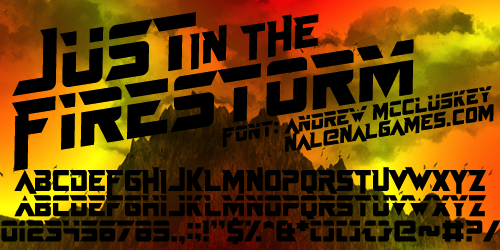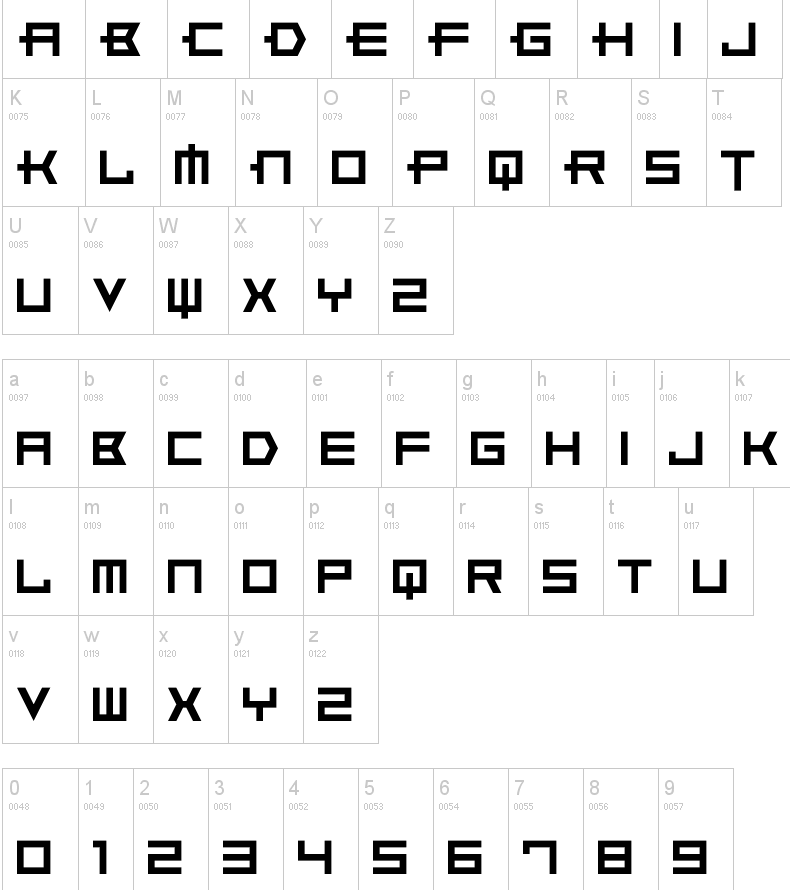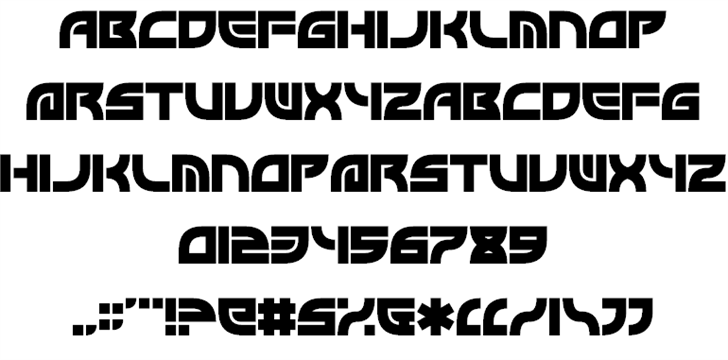
Andrew McCluskey
Independent game developer Andrew McCluskey (NAL Games, Dundee, Scotland, b. 1991) published hundreds of free typefaces before 2015 under the NAL label. In 2015, Andrew McCluskey, after becoming Allison James, joined forces with Daniel Johnston and set up Chequered Ink in bath, UK. They live in Newport, Wales. Andrew's pre-merger fonts are listed here.
Andrew McCluyskey designed the free LED-inspired Kinglify (2011), Digital Display (2012), and Princelify (2011). Manly Man (2011), Metal Arhyrthmetic (2011) and Ace Futurism (2011) are semi-octagonal. Consider Me Vexed (2011) and Pixel Flag (2011) are pixel typefaces.
In 2012, he made She Curls in the Mist, Xero's Karma, Pastcorps (army stencil), Gnome Splinters, Fought Knight, Vermin Vibes (futuristic), Vermin Vibes 1989 (pixel face), Vermin Vibes 2, Vermin Vibes 3 (2014), Vermin Vibes Diet, Vermin Vibes Redux, Dubbing Star (futuristic), Sorrier Statements, Particulator (an octagonal paper fold typeface), Coder's Crux (a pixel typeface created for programmers, FontStruct), Triggering Fanfares (octagonal), Alt West, Notalot25 (pixel face), Notalot35 (pixel face), Lord Juusai (inspired by the logo for Lord Tensai from WWE), Zephyr Jubilee (an alien language simulation typeface), Bevel Fifteen, Xero's Theorem (sci-fi), Sawchain (2012, FontStruct), Dubbing Step and Here Be Dubstep (FontStruct), Italic Bricks, Gang Wolfik (angular, +Blade), Ruaturecu, Quous Inno, Electramaniacal, Xodohtro-Nu (a black octagonal typeface), Distortion of the Brain, Berate the elementary (techno face), Not sure if weird or just regular, Opulent Fiend, Rawhide Raw 2012 (techno, inspired by the WWE Raw logo of 2012), Particulator II (octagonal), The Missing Link (trekkie), Thunderstrukk, Understrukk, Ganf Wolfik Blade (a pointy Blade style font).
Typefaces made in 2013: Call of Ops Duty, Spinebiting, Laceration, Casual Hardcore, Zany Races, Vermin Vibes 2 Nightclub, Exoskeleton, Perspire, Piston Pressure (sans), Particulator III, Liberty City Ransom (grunge), Zdyk Leo, Variety Killer (grunge), Savantism, Vermin Vision, Zdyk Sagittarius (a circle-based experimental font), Milestone One (a gaspipe sans), Comfortably Fucked, Noasarck (+Sporadico, +Quattro), Future Time Splitters, Heart Breaking Bad, Jan Hand, Erhank, Exoskeleton, The Rave Is In Your Pants, Minecraft Evenings (inspired by the Minecraft logo), FoughtKnight Victory (a video game font), Piescese, Comic Spans, Cauterise, Dead Font Walking (rough-edged poster font), Cutthroat Clawmarks, Eride (grunge), Effervescent Superbeings, Front Page News, Kill The Noise (brush script), Distort You A Lesson (grungy), Vermin Vibes 2 Black, Vermin Vibes 2 White, Vermin Vibes 2 Soft, Dubstep Cadence, Relapse Into Madness, Kings of Kings Lynn (dadaist), Smorgasbord, Scream When You'Re Ready, I Phone You Phone, Respire, Perspire, Vermin Vibes Slant, Sharp, Cursivertex, Rick Lobster (stencil face), Cursivertex, Vermin Vibes Dystopia (cyberpunk), Wabbit Sans, Calligraphy Aquiver, Agra Axera (knife-edged sci-fi face), The Keepsake Days, See You At The Movies, Xero's Proof, Vermin Vibes Out Of Ink (textured), Melancholic Roadeo, Wickermanor (a stiletto typeface), Lord Juusai Rises, Vermin Vibes Ex, Vermin Vibes Roundhouse, Just in the Firestorm, Stuntcroft (modular), Ghetto Magnetic (grunge), QA Reports (fat finger typeface), Y-Andermo (stiletto style), Dragon Slapper.
Typefaces from 2014: Man Flu (FontStruct), Zany Races, Big Quicksand, Modern Caveman, Alpha Sapphire (a Pokemon typeface), Omega Ruby (a Pokemon typeface), Schweiz, Beta (FontStruct), Jawbreaker (FontStruct), Tomorrow Wind, Embezzler, Royal, Final Gambit (grungy athletic lettering), NAL Hand, Fingbanger, Dont Waste That Napkin (squarish font), Bold Testament, Cisgender, NonchalantLove, Grelsey Kammar (sic), Valiant (stencil), Anger Management, Italipixel, Ultramarine, Nero (sci-fi font), Bamboozler, Seriffic, High Jinks, Iregula (sic), LNR Phonetic Alphabet, Primary School, Playtime (3d face), Electromagnetic Lungs, Node to Nowhere, Alienated (trekkie font), Questrian, Scars, Da Se Nei (art deco), Dance Floor (dot matrix face), Edge Cutting, Lord Juusai reigns, Superpower Synonym (fat brush), Fought Knight Die (techno), The Thrill of the Kill, Lay of the Land, Deavantgar (art deco), Confidel, Fight Night, Comeback of the Damned, Vermin Vibes Corrupto, Chandstate, Scars, Bustin Jieber (pixel typeface), A Dash of Salt, Come Rain or Fall, Xsotik, Sanseriffic (avant-garde sans), Cassius Garrod, Effortless Tattoo, Coder's Crux 2, Radaro, Overdrive Sunset (brush face), Dead CRT, Fatality's Edge, Tolerant, Coder's Crux 2 (dot matrix), Consider Me Vexed (pixel face), Diamante, Pixel Flag, Aardvark CWM Type, Enter The Grid, Vermin Vibes 2 EDM XTC, Byron, See You at the Movies 2, And Then It Ends, God Hates Westboro, Writing Without Ink, Zdyk Aquarius, Curvert, Superdie, Rocky Road, Animal Silence (constructivist), Gnaw Hard, 19th Century Renegade, Trip Trap, Freudian Slit, Digital Dismay (LED face), Zdyk Pisces (circle-based typeface), Zdyk Scorpio, Guilty Treasure (techno), Wolfganger (inspired by Wolfgang Gartner), Xero's Retreat, Sitdown (octagonal), Stencylette, No More Justice (blackletter), Masterblast (sci-fi), Kesha (sci-fi), Primal Dream, Grandma's Television, Keyboard Warrior, Foughtknight, Blissful Thinking, Positive Reinforcement, The End of Days.
Typefaces from 2015: This Sucks (pixel font), Front Page Neue, Vermin Vibes Mert, Rock Elegance, Stripes.
Typefaces from 2016: Enter The Grid, Fill In The Gaps, FoughtKnight, Grunge Tank, Alt West.